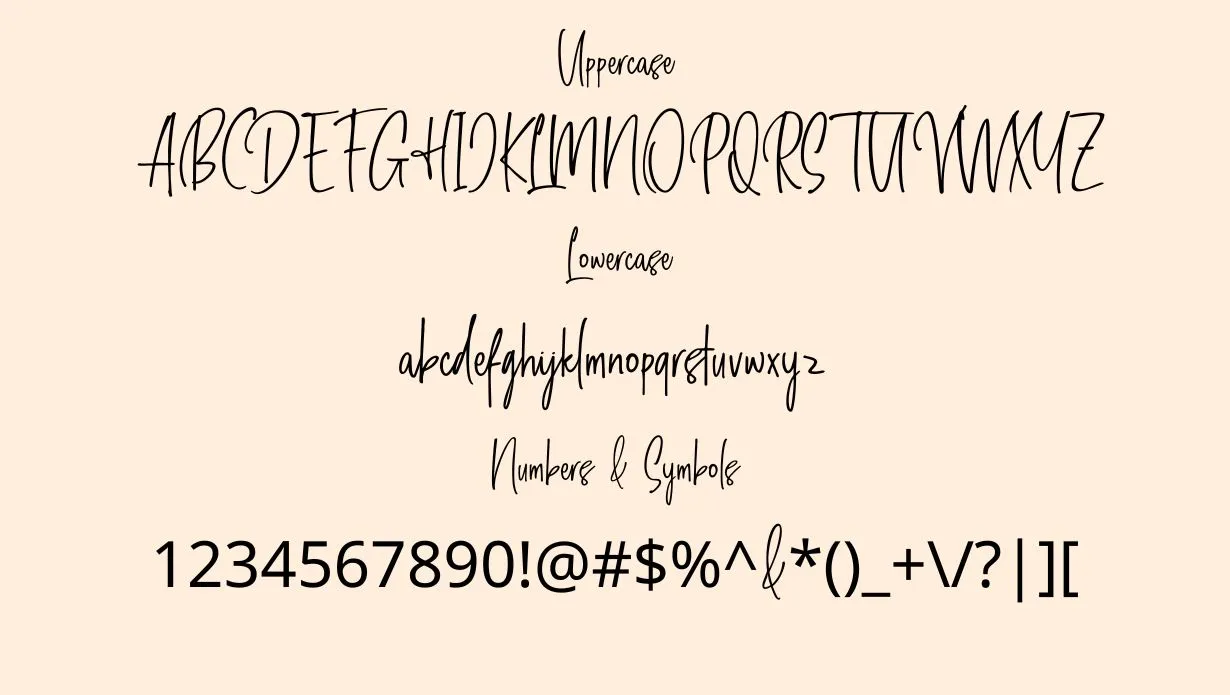
The Breakfast and Chill Script font emanates a relaxed and laid-back vibe, perfect for casual designs. In Adobe Photoshop, it crafts easygoing and chilled-out visuals, capturing a relaxed and easygoing feel.
With CSS, it introduces a relaxed essence into web elements, making the design approachable. In Canva, it’s adept at producing calm and laid-back social media posts or creating an atmosphere of relaxation in event promotions.
| Name | Breakfast and Chill Script Font |
| Designer | Irwanwismoyo |